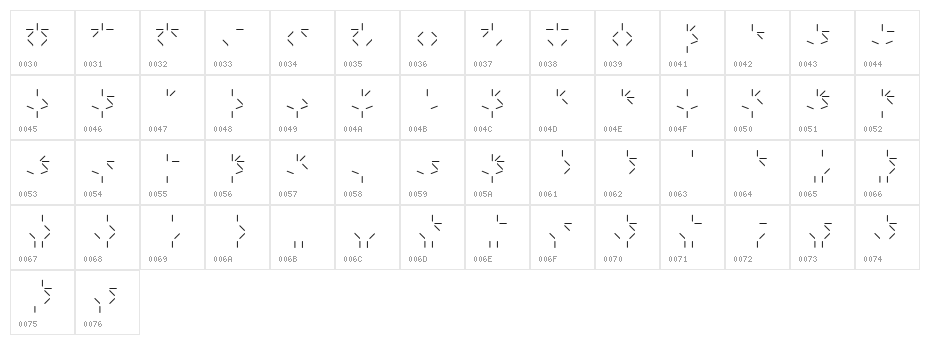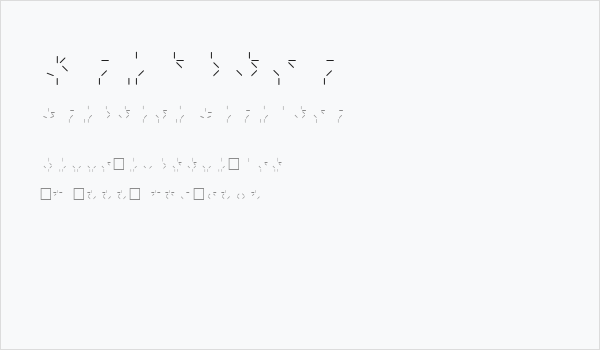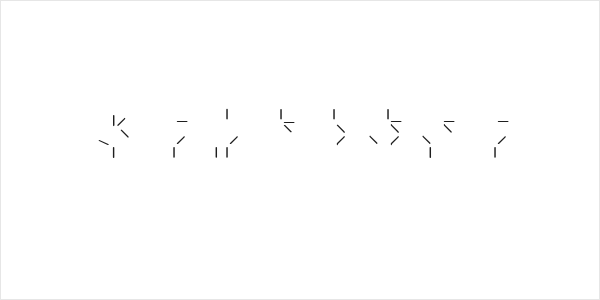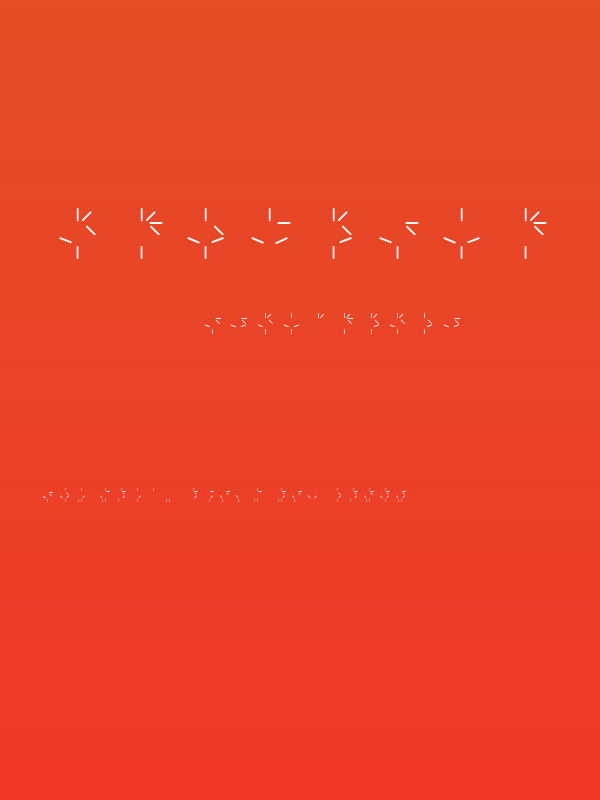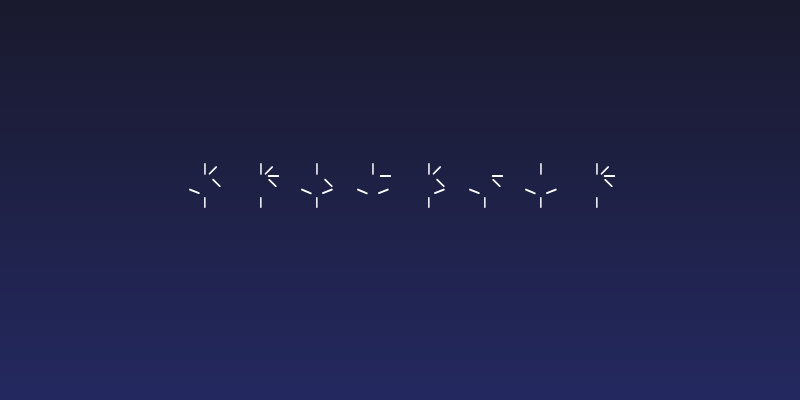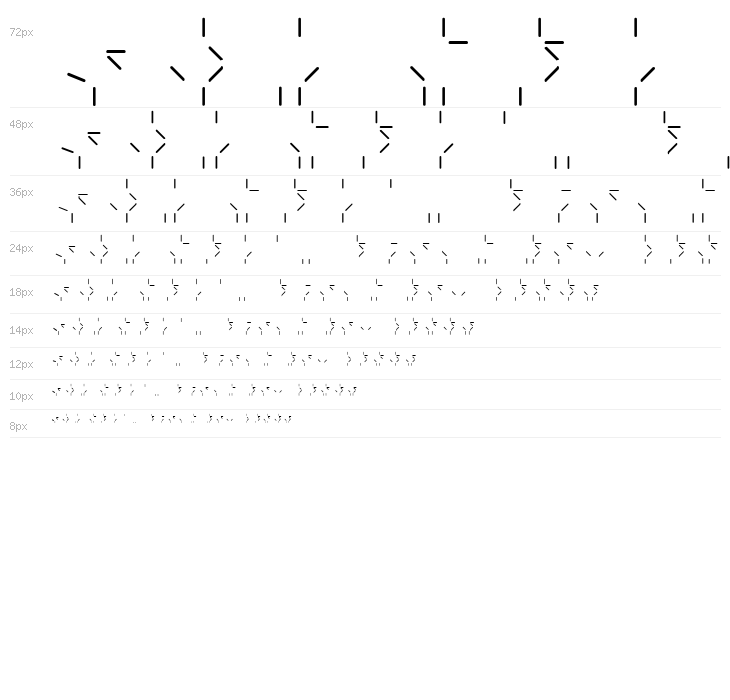
Predator Font
Predator Description
This font features a highly decorative and abstract design, resembling a series of geometric shapes and lines that form each character. The characters are composed of disconnected segments, giving it a futuristic and cryptic appearance. The overall style is reminiscent of digital or alien scripts, making it ideal for creative and unconventional projects. The font lacks traditional curves and serifs, focusing instead on angular and linear elements. Its unique structure makes it stand out, though it may not be suitable for readability in long texts.
Overall StyleFuturistic, Abstract
Use CaseLogos, Headlines, Posters
Proposed ProjectsIdeal for sci-fi themed designs, video game graphics, movie posters, and creative digital art projects.